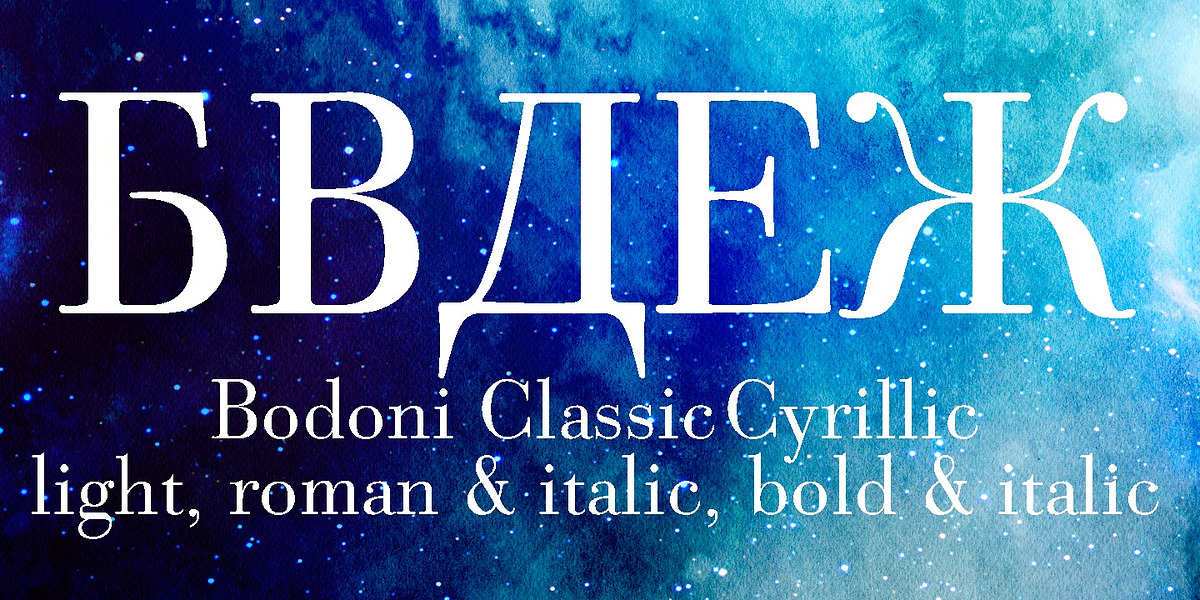
Bodoni Classic Cyrillic
Nastarowje is a serif typeface designed by Gert Wiescher. It's characterized as an elegant and classic font suitable for paragraph text. Wiescher created a Cyrillic version of his Bodoni Classic Text typeface at the request of Vogue Moscow.